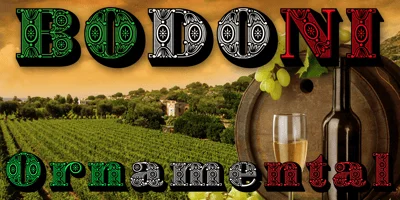
Bodoni Ornamental Font
Bodoni Ornamental Font is perfect for luxury wedding invitations, prestigious award ceremony programs, high-end fashion magazine mastheads, exclusive art gallery exhibition materials, aristocratic estate branding, classical music concert programs, distinguished literary society communications, and elegant cultural foundation presentations.
Bodoni Ornamental Font is exciting because it represents the absolute zenith of typographic artistry with its supremely refined letterforms adorned with exquisite decorative flourishes that embody centuries of European calligraphic mastery and aristocratic elegance. The typeface captures the opulent sophistication of imperial courts and the timeless beauty of classical ornamentation, creating an immediate sense of unparalleled luxury and cultural refinement that commands reverence from the most discerning connoisseurs of beauty.
Bodoni Ornamental Font family includes Light, Regular, Medium, Bold, and Decorative variants, each enhanced with elaborate baroque flourishes and classical ornamental elements, offering designers the ultimate typography tools for creating communications that epitomize the highest expressions of artistic sophistication and cultural grandeur.
Whether you're developing an ultra-exclusive luxury brand identity, designing prestigious cultural event materials, or creating aristocratic celebration content, Bodoni Ornamental Font provides unmatched elegance and imperial appeal. This magnificent typeface perfectly embodies the classical ideals of perfect proportion enhanced with ornamental splendor, ensuring your communications resonate with elite audiences who demand nothing less than typographic perfection and cultural distinction. The font's elaborate decorative elements and imperial rhythm make it particularly effective for the most prestigious brands and institutions that represent the pinnacle of luxury, culture, and artistic achievement. Master designers consistently choose Bodoni Ornamental Font when projects require typography that communicates absolute luxury, cultural supremacy, and the kind of ornamental magnificence that transforms exclusive events into legendary experiences, making it indispensable for the world's most prestigious luxury branding, imperial cultural institutions, and any application where ornamental typography must reflect the extraordinary standards of excellence that define true aristocratic taste and the timeless principles of beauty that have inspired humanity's greatest artistic achievements throughout history and continue to set the ultimate benchmark for luxury and cultural refinement.